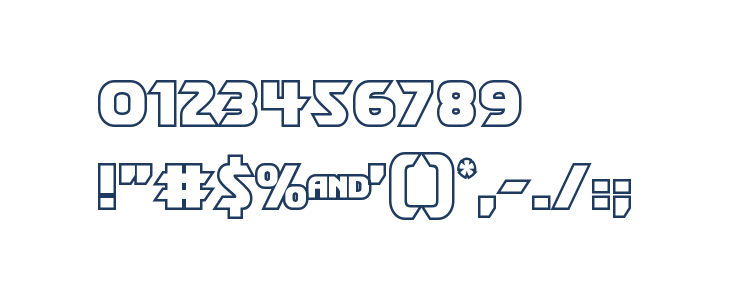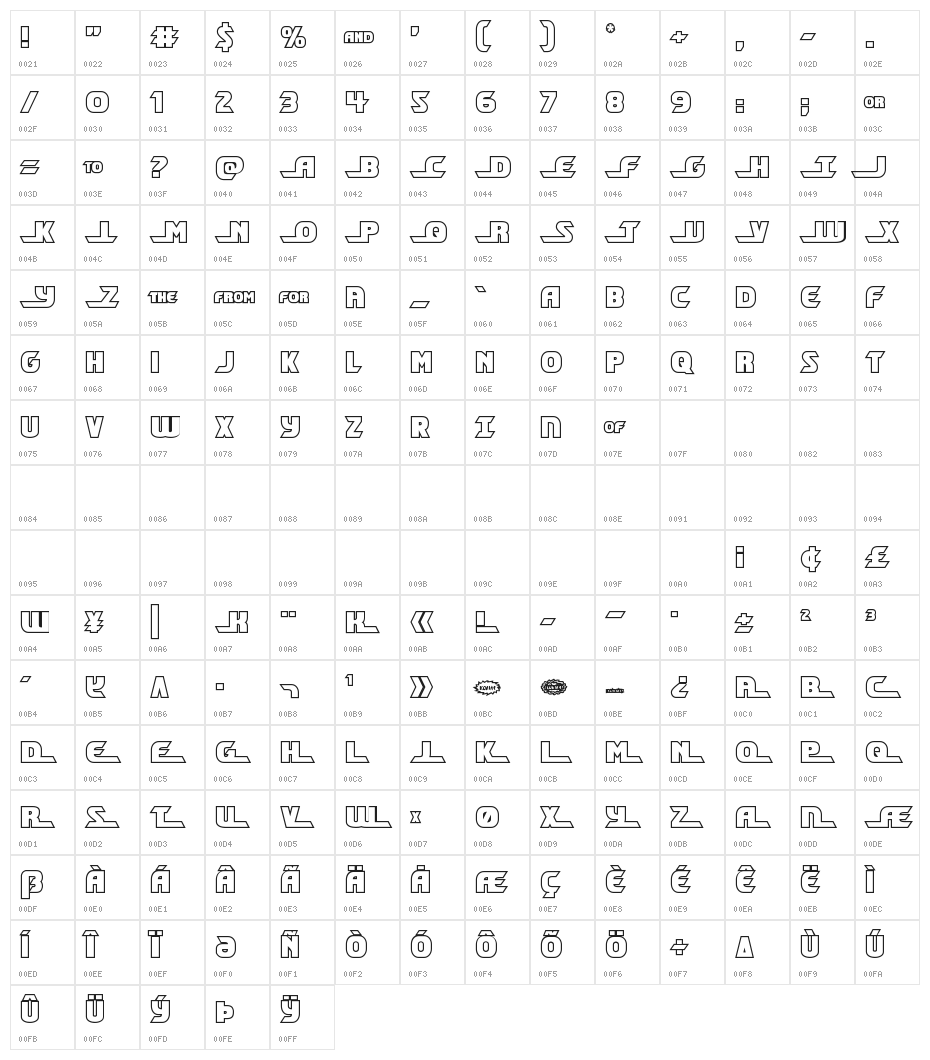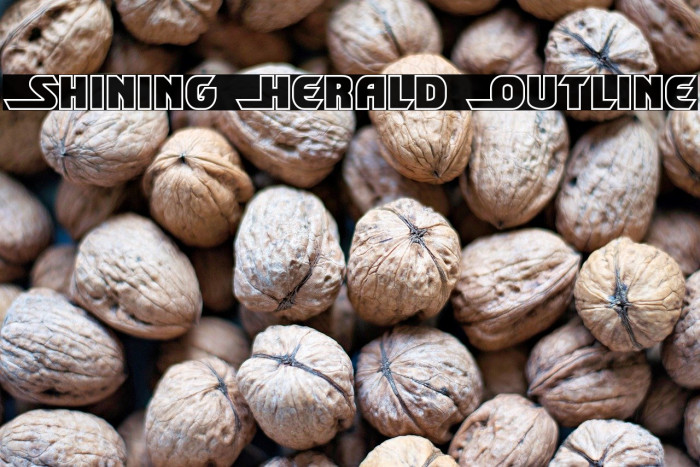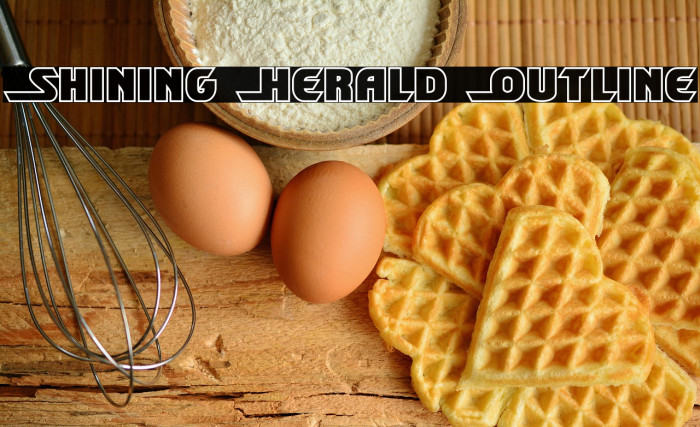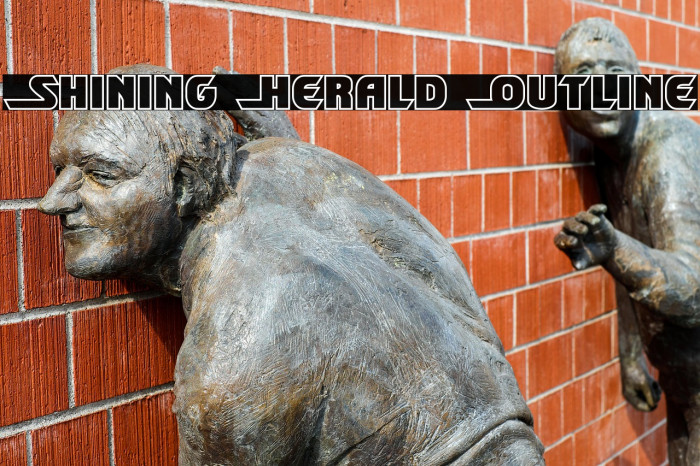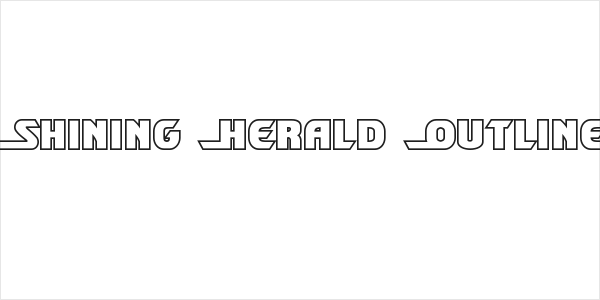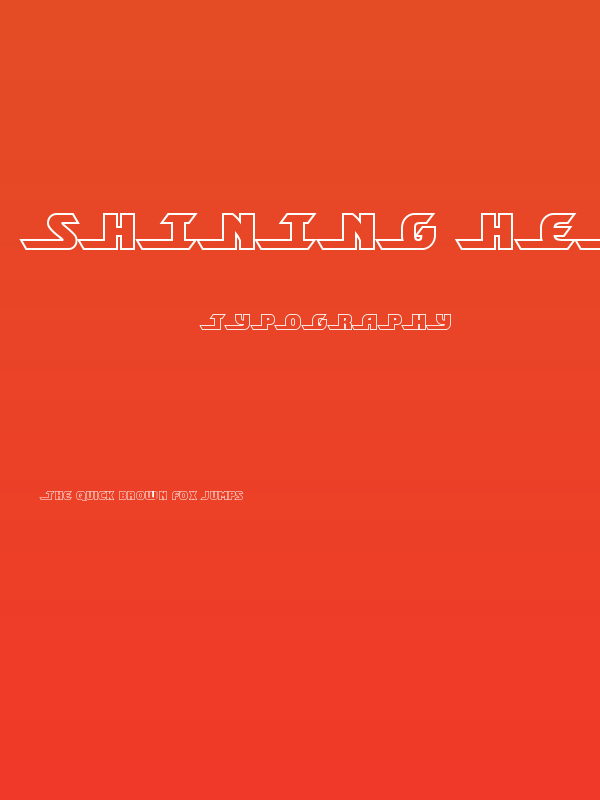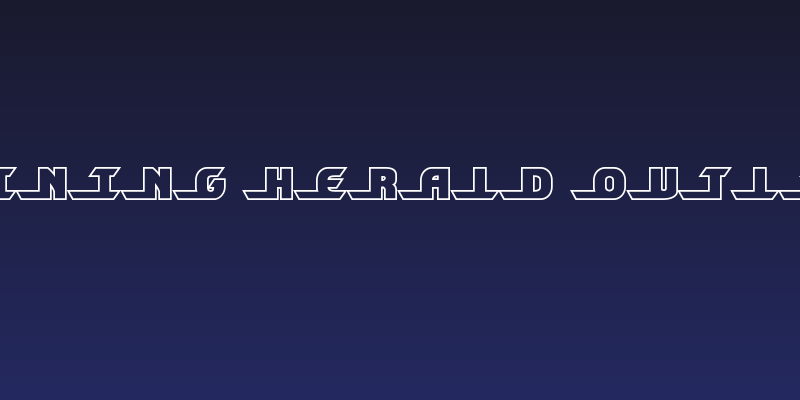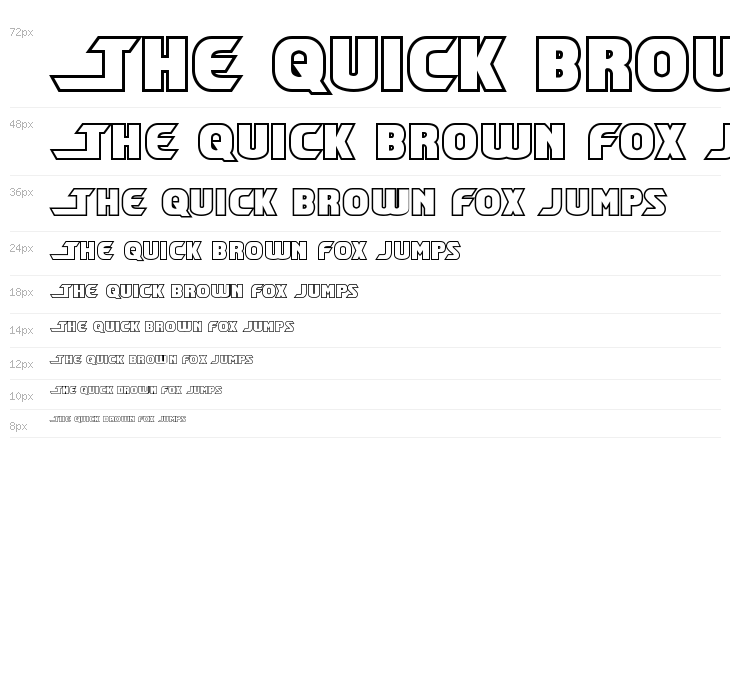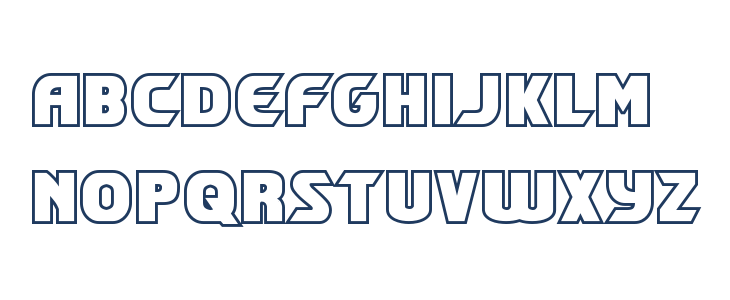
Shining Herald Outline Font
Shining Herald Outline Description
This font features a bold, geometric outline style that combines modern aesthetics with a touch of retro flair. The uppercase letters are characterized by their thick outlines and angular shapes, creating a striking visual impact. The numbers and special characters maintain this bold outline, ensuring consistency across all elements. The font's design is clean and structured, making it suitable for attention-grabbing headlines and titles. Its unique style is both playful and assertive, offering versatility for various design projects.